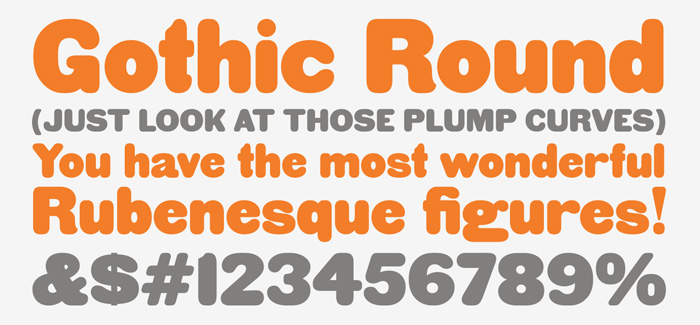
HWT Gothic Round font
HWT Gothic Round font is designed by Miguel Sousa and it is a revival of the original wood type by the George Nesbitt Co. (1838). This new digital version looks very solid with strong contemporary presence. Gothic Round is a typeface with a lot of character and personality – you won’t need any special effects around to make it more beautiful – use it freely against simple coloured background or colour your letters and place them freely on snow white paper. You will be surprised and surely satisfied to find out how useful it is for attractive headlines, food packages and logos.